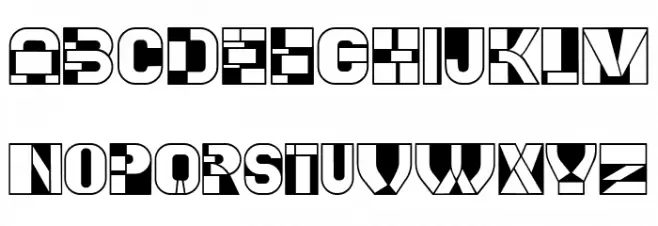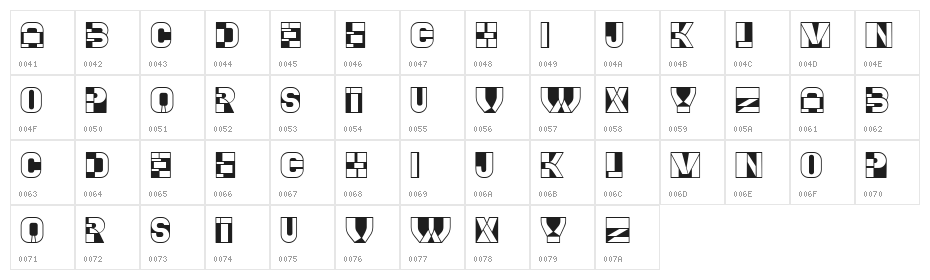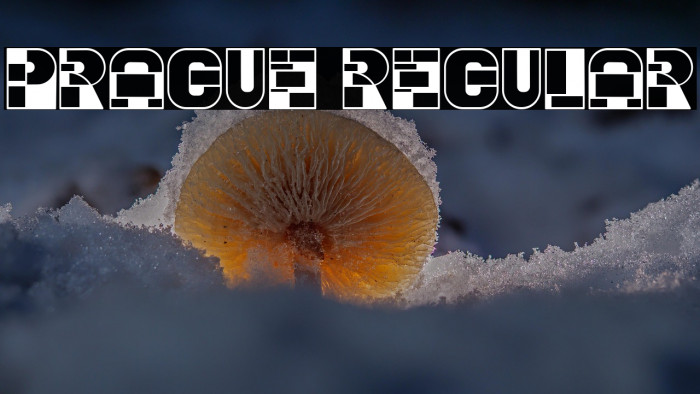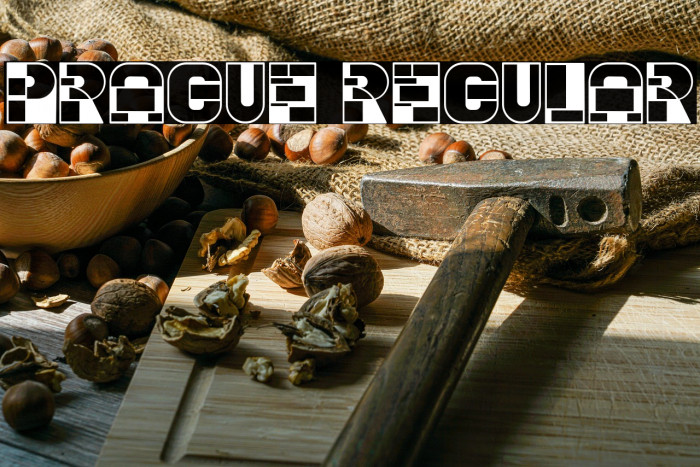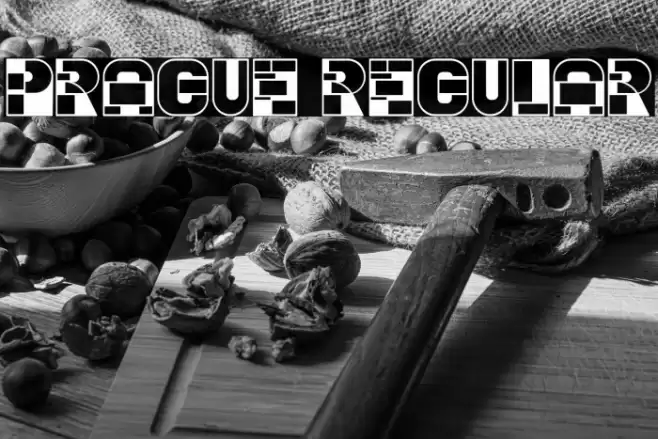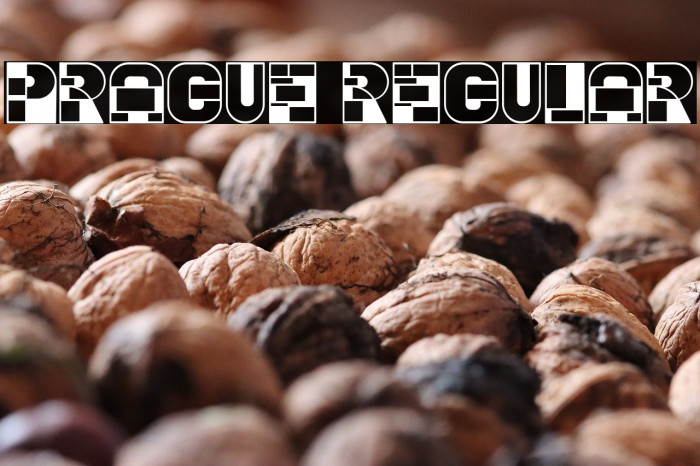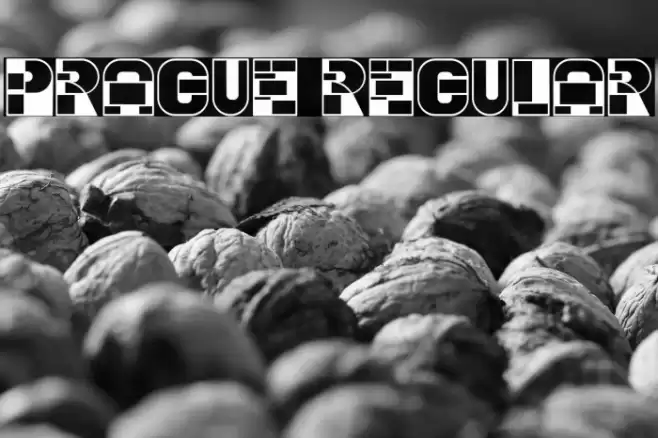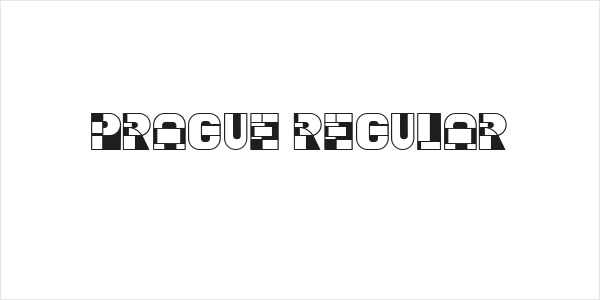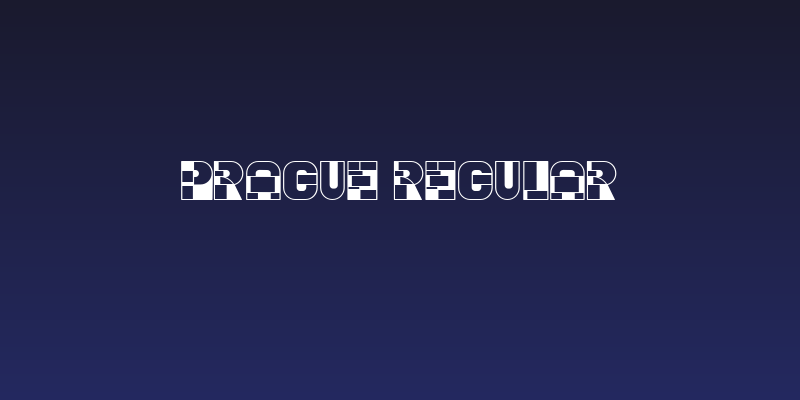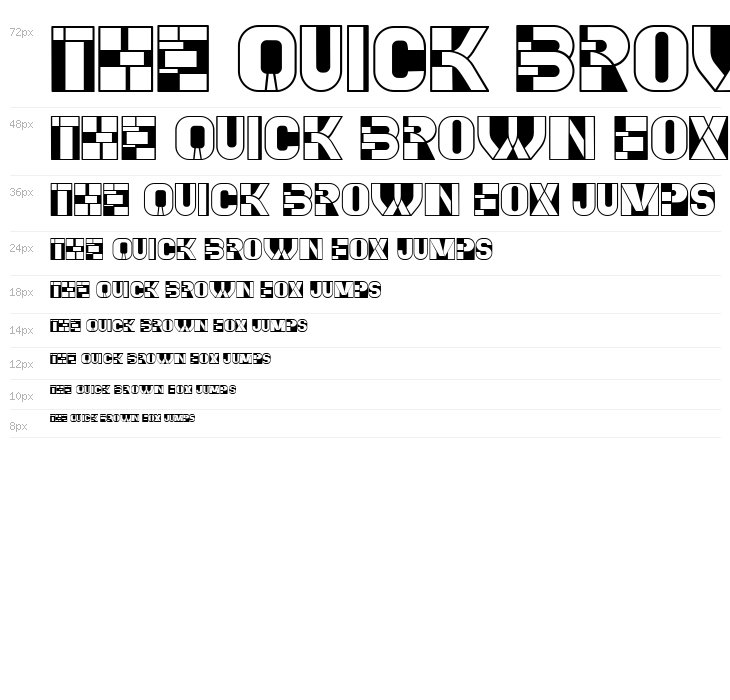
Prague Regular Font
Prague Regular Description
This font features a bold, geometric style with a unique blend of solid and outlined segments. Each character is crafted with a combination of filled and hollow spaces, creating a striking visual contrast. The uppercase letters are particularly distinctive, with a modern and artistic flair that makes them stand out. The font's design is highly decorative, making it ideal for creative projects that require a strong visual impact. Its structured yet playful appearance is perfect for headlines, posters, and branding materials that aim to capture attention and convey a sense of innovation and style.